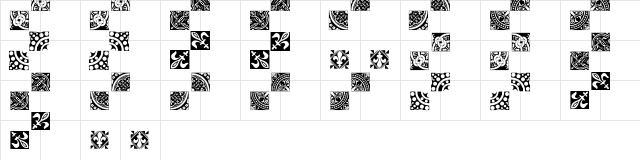
Medieval Tiles I Regular
Design Context for Medieval Tiles I Typeface
Medieval Tiles I is a composed and adaptable typeface that performs quietly and consistently across a wide range of design contexts.